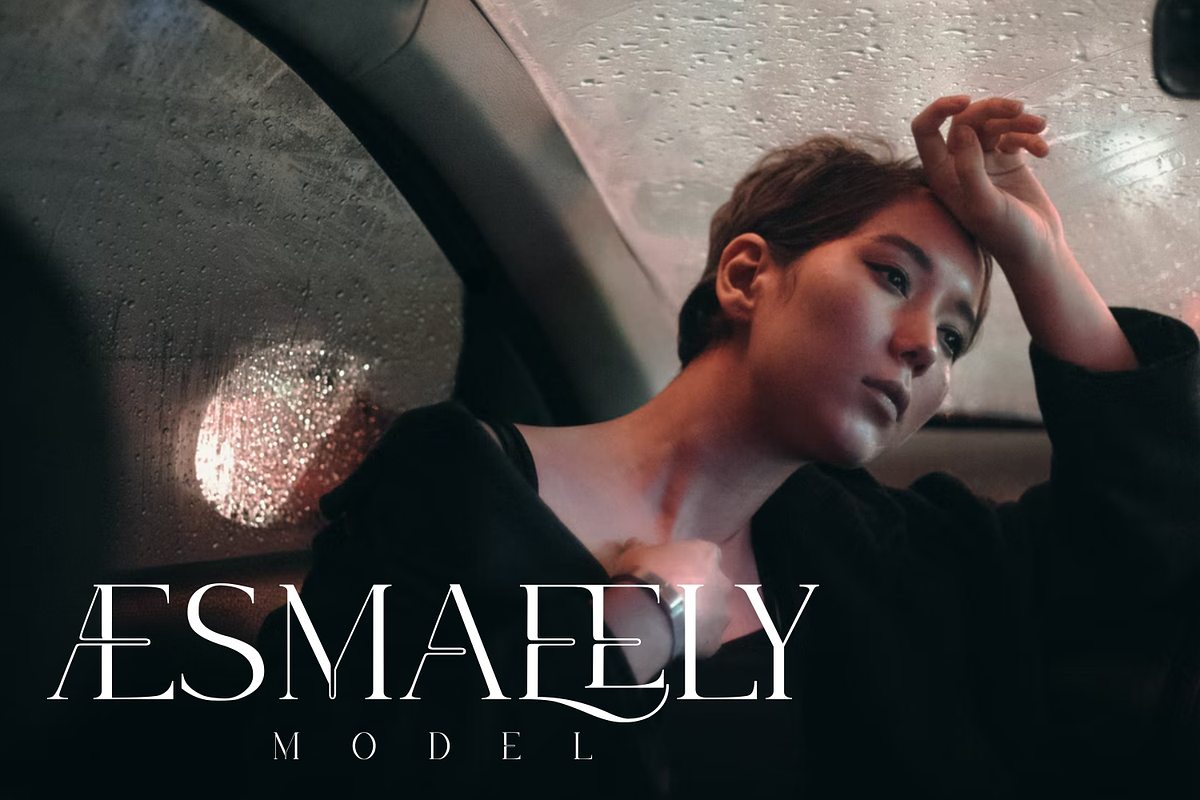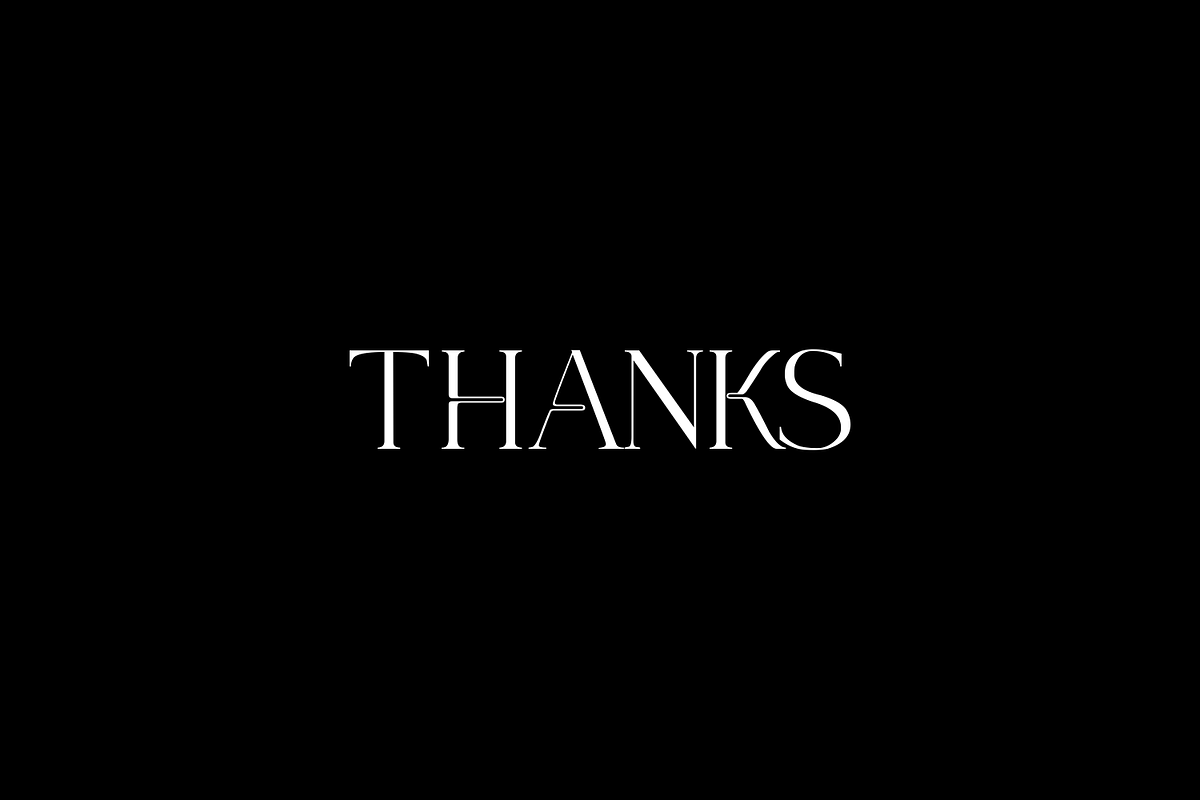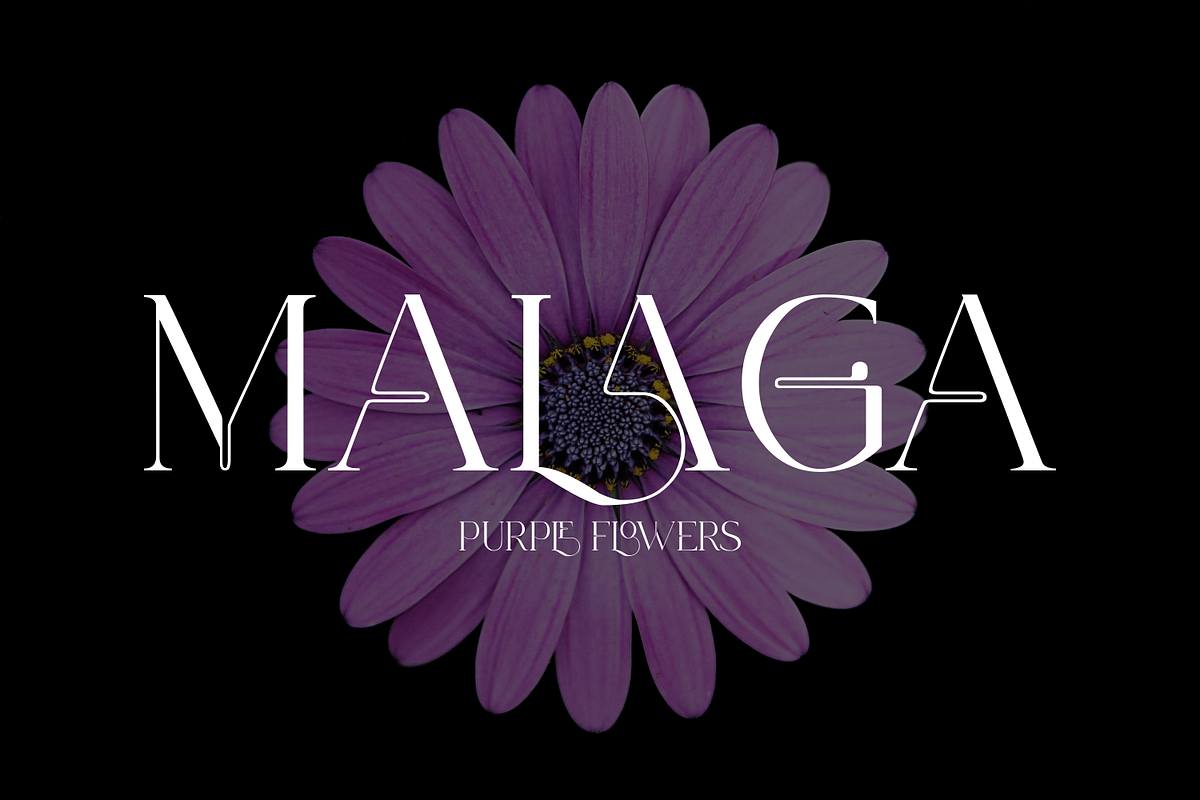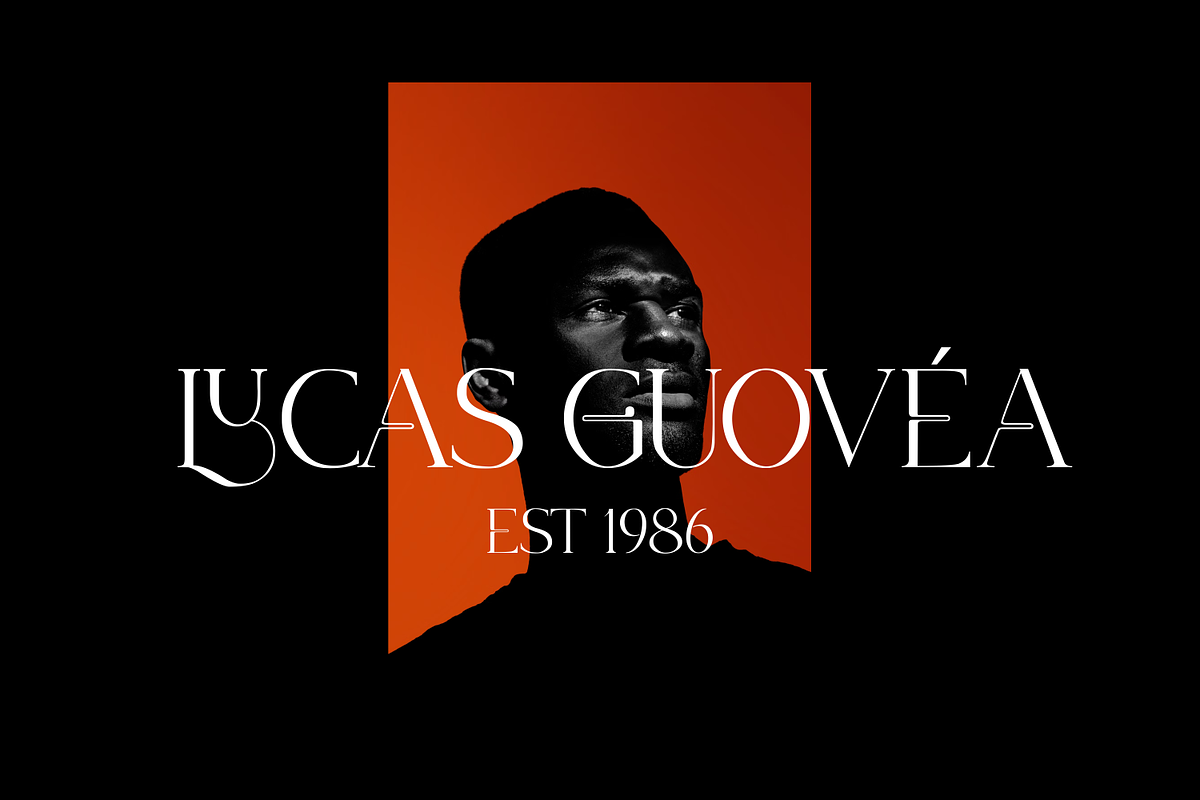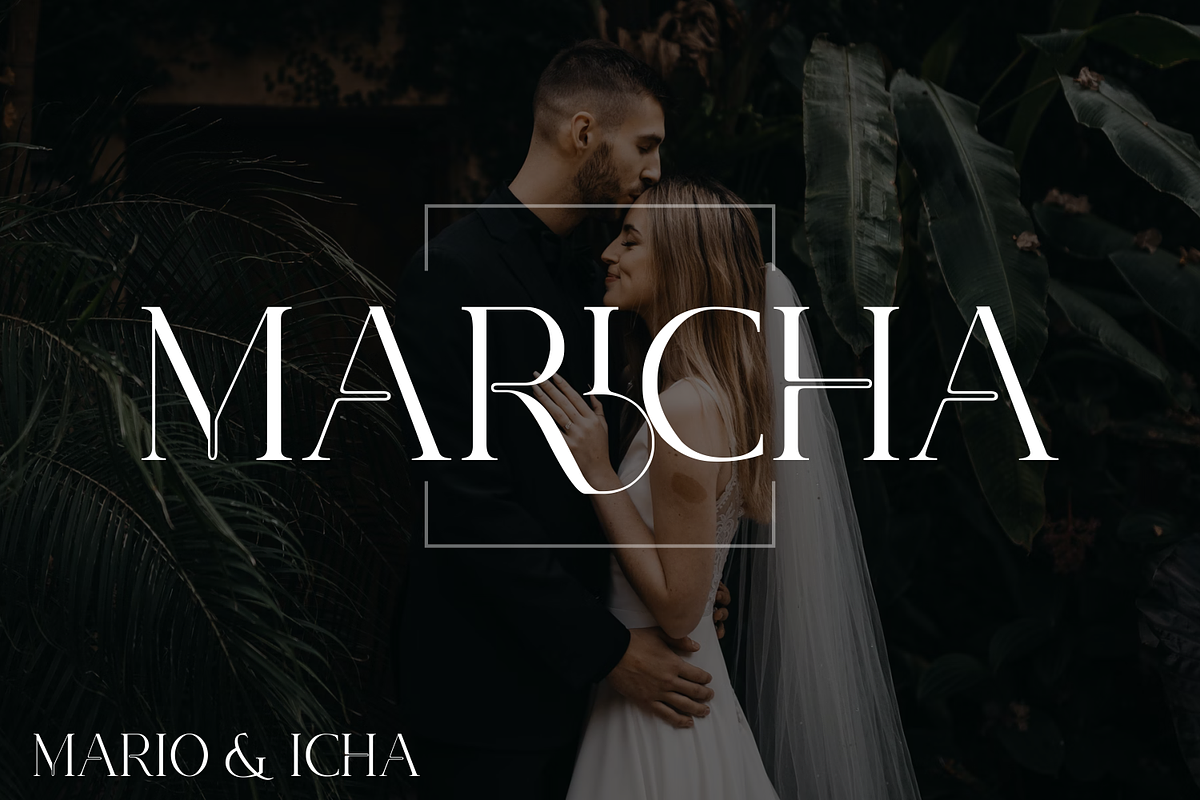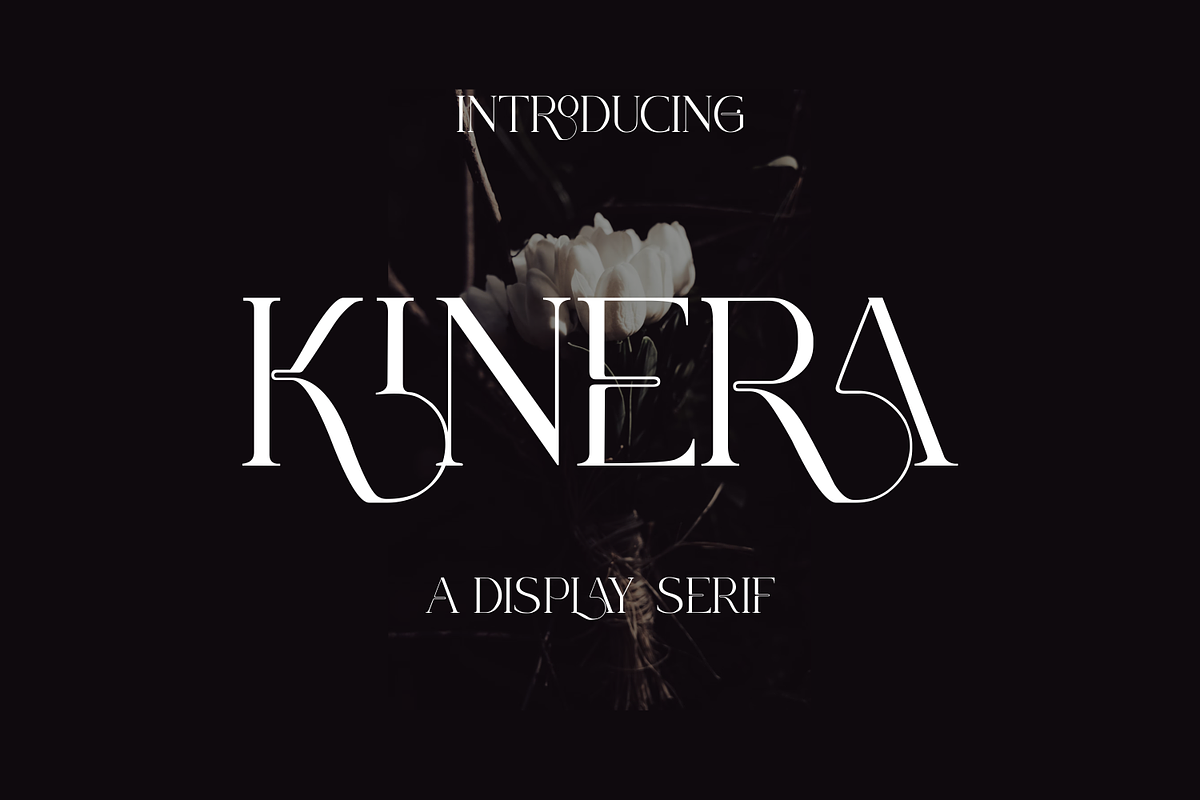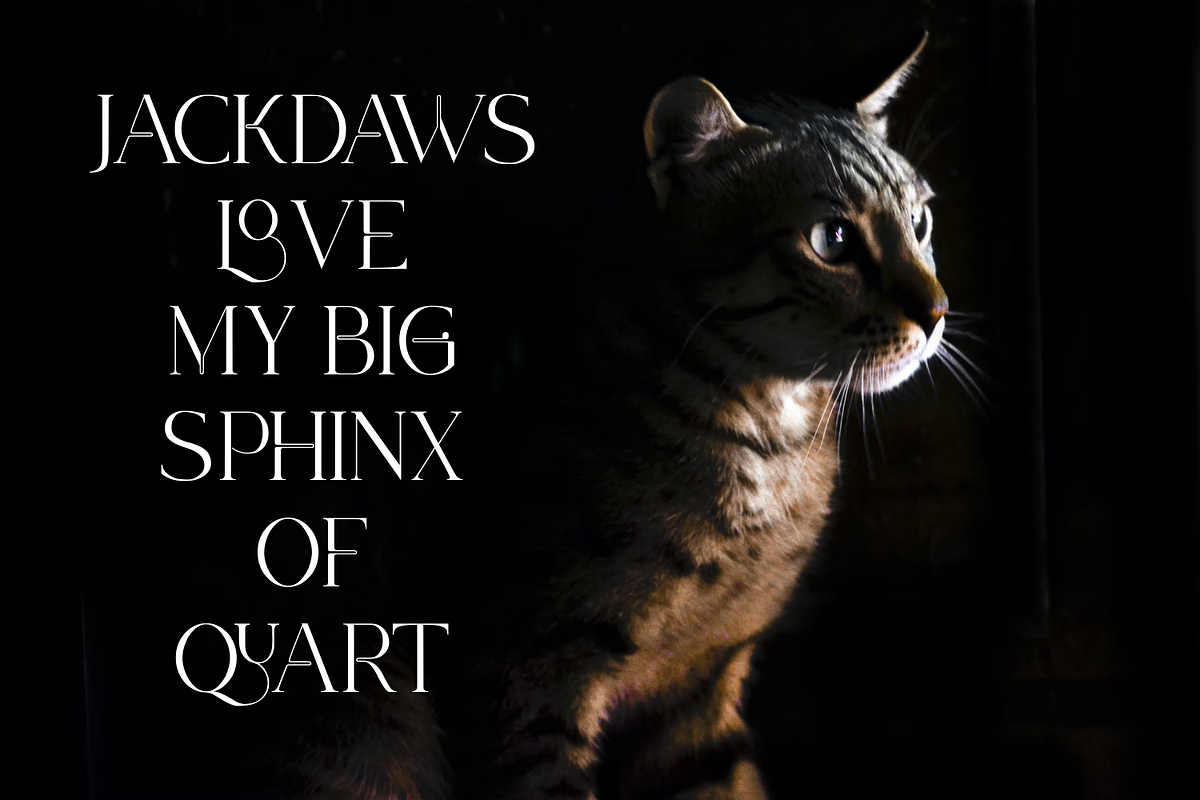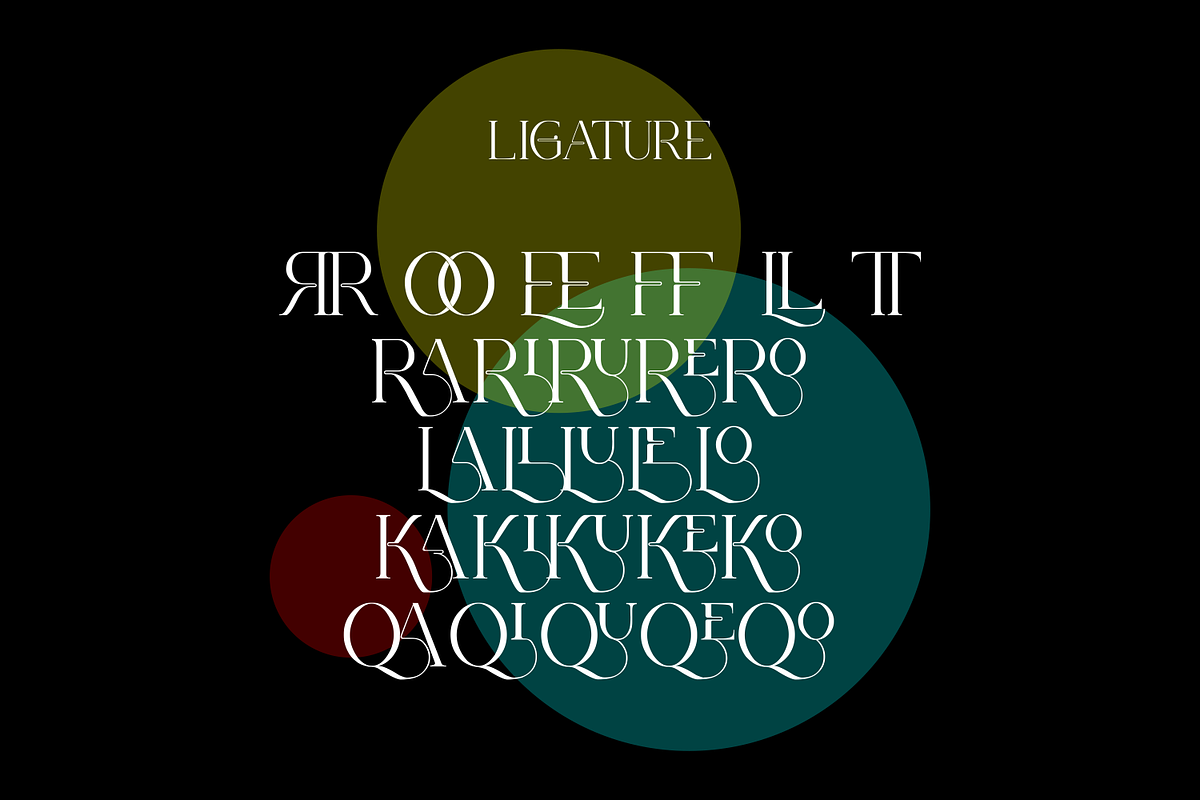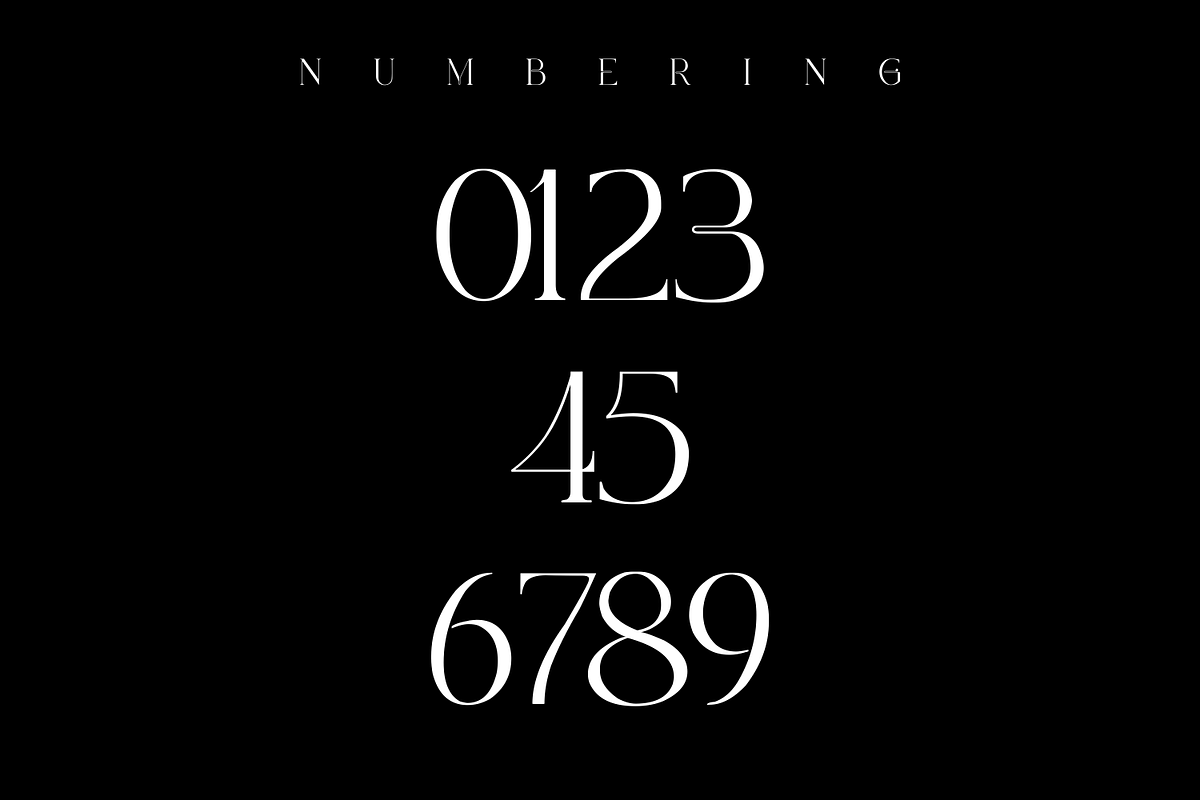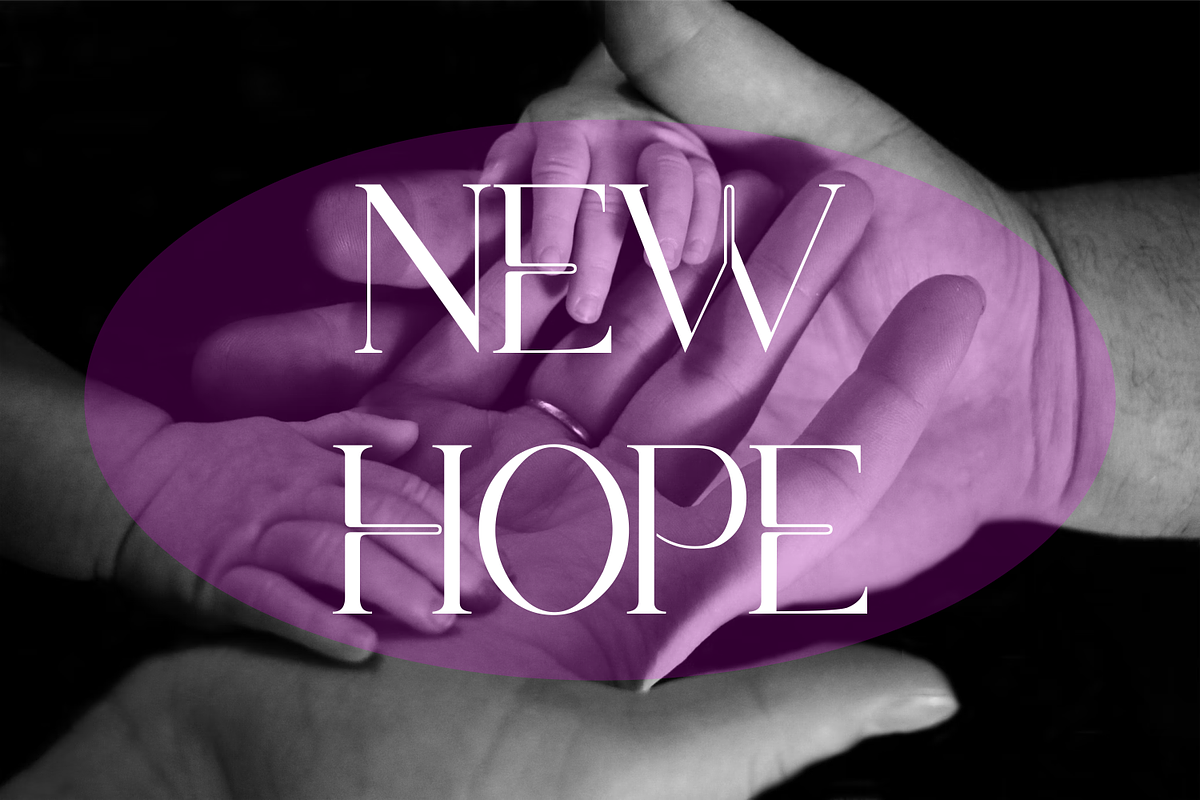
KINERA
Kinera is a display elegant serif . It seduces your eyes with its curves yet still looks serene and classy. Perfect for any kind of creativity you are about to start :). with a binder in it will add a very memorable impression to the writing you want. Note : Ligature can be active in CAPSLOCK File Included :